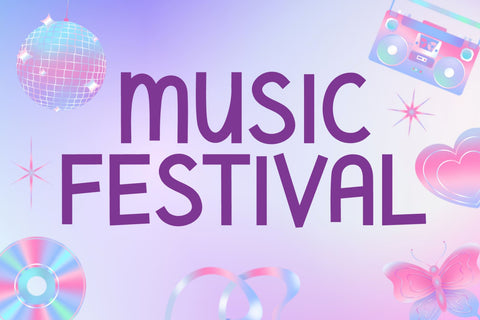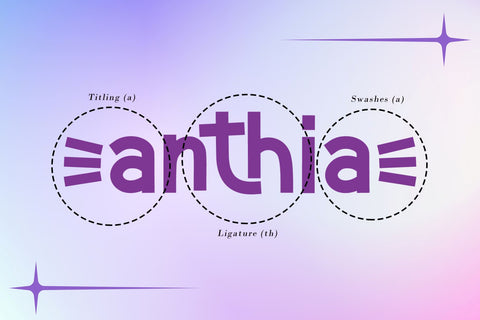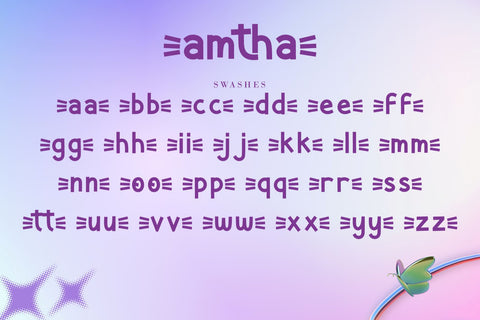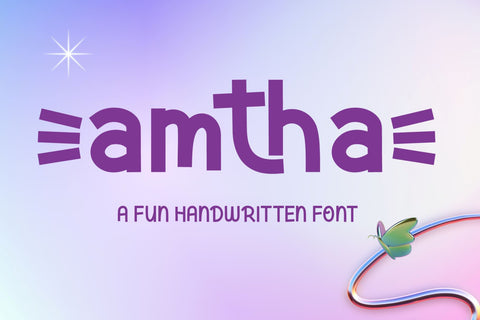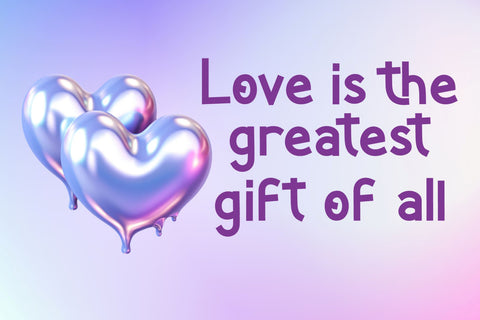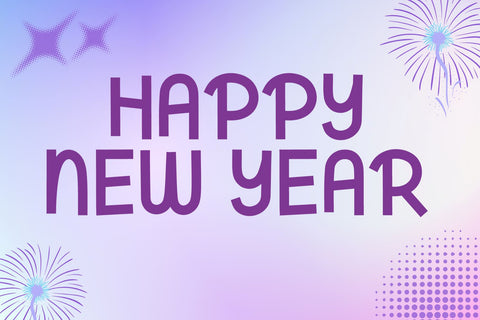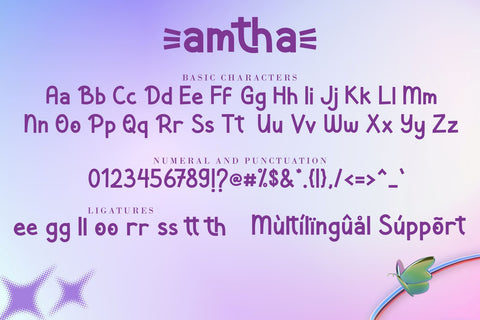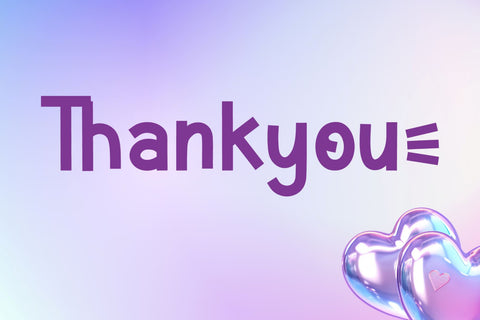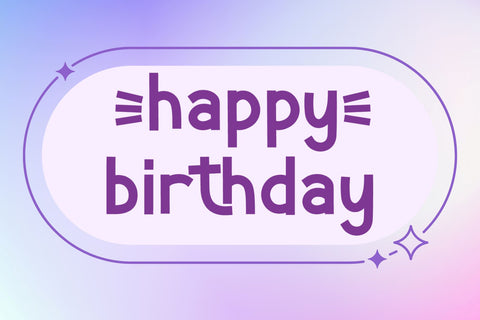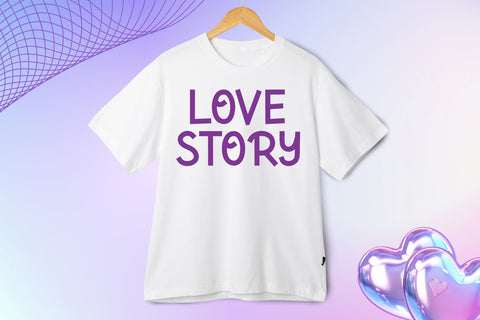
Amtha - A Fun Handwritten Font
Say hello to Amtha, the font for bold, fun, and creative designs! This versatile typeface makes it the perfect choice for fun and engaging designs. From social media graphics to festive New Year greetings and stylish t-shirt designs, Amtha fits perfectly. Its bold strokes and charming imperfections give a warm, handcrafted feel, bringing life and energy to every project. Let your imagination run with this versatile and engaging typeface!
Amtha Features :
- (a-z) titling, (a-z) swashes, ligatures
- Support multilingual; ä ö ü Ä Ö Ü ß ¿ ¡